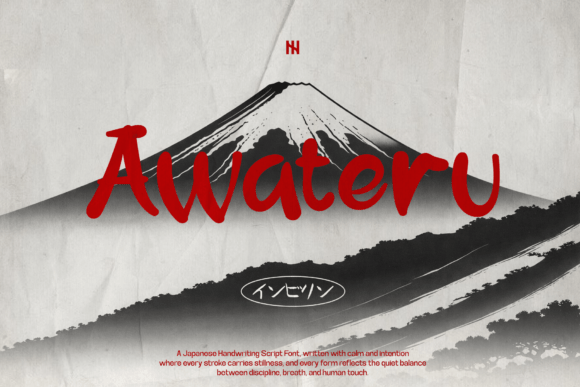
The Awateru Font: A Mindful Approach to Modern Typography
What Makes Awateru Special?
Awateru is more than just a font; it’s an experience. Crafted with gentle rhythm and meditative strokes, it embodies the mindful spirit of traditional Japanese writing. This font is designed to bring calm and authenticity to your modern typography, making it perfect for projects that seek a poetic or cultural aesthetic.
Key Features of Awateru Font
• ✨ Handwritten with a personal touch, offering a warm and human feel
• ✅ Includes uppercase & lowercase characters, punctuation, numerals, and multilingual support
Honest Review: The Good and the Quirks
What I Love About Awateru
• ✨ Authentic Handcrafted Feel: Awateru’s strokes are smooth and fluid, giving your designs a genuine, hand-written look.
• ✅ Versatility: From branding and editorial projects to packaging and posters, Awateru fits a wide range of design needs.
• ✅ Elegant and Poetic: The font’s aesthetic is perfect for conveying balance and elegance, ideal for fashion brands, authors, and restaurants.
While Awateru is incredibly versatile, there are a few things to keep in mind:
• ⚠️ Legibility at Small Sizes: Like many script fonts, Awateru may lose legibility when used at very small sizes. It’s best used at 14px or larger.
• 🤔 Limited Use in Body Text: While beautiful, Awateru is more suited for headings and short paragraphs. For longer body text, a more traditional font might be more readable.
Awateru supports OpenType features, allowing for advanced typographic control. In compatible applications like Adobe Photoshop and Illustrator, you can access:
• Stylistic Alternates: Offers variations of letters for more customization.
• Glyphs: Provides access to additional symbols and characters.
The Designer Inspiration Behind Awateru
Awateru’s design is inspired by the serene landscapes and mindful culture of Japan. The creator aimed to capture the essence of traditional Japanese handwriting, blending it with modern typography needs. This results in a font that’s not only beautiful but also tells a story of cultural richness and simplicity.
Q: What type of projects is Awateru best suited for?
Awateru is versatile and can be used in a variety of projects including branding, editorial content, packaging, posters, and logotypes. It’s especially suited for projects that seek a poetic or cultural aesthetic.
Q: Does Awateru support multilingual text?
Yes, Awateru includes multilingual support, making it suitable for designs intended for a global audience.